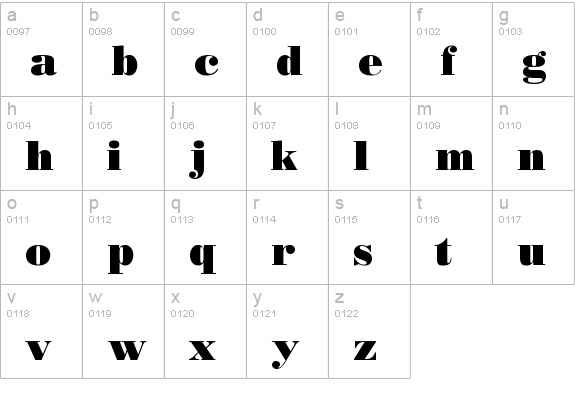
Bodnoff Font Details
Bodnoff font is a stunning and versatile typeface that effortlessly combines elegance with modernity. Its sleek and sophisticated design makes it perfect for a wide range of creative projects, from branding to editorial design. With its clean lines and balanced proportions, Bodnoff font exudes a sense of refinement and professionalism. One of the best features of Bodnoff font is that it is completely free to download. This means that you can easily access this high-quality font without having to worry about any costs. Simply head over to FontsMarket.com and start using Bodnoff font in your projects today. Whether you are designing a logo, creating a website, or working on a print publication, Bodnoff font is sure to elevate your work and make a lasting impression. Its timeless appeal and modern flair make it a must-have font for any designer looking to add a touch of sophistication to their projects. Download Bodnoff font now and take your designs to the next level.